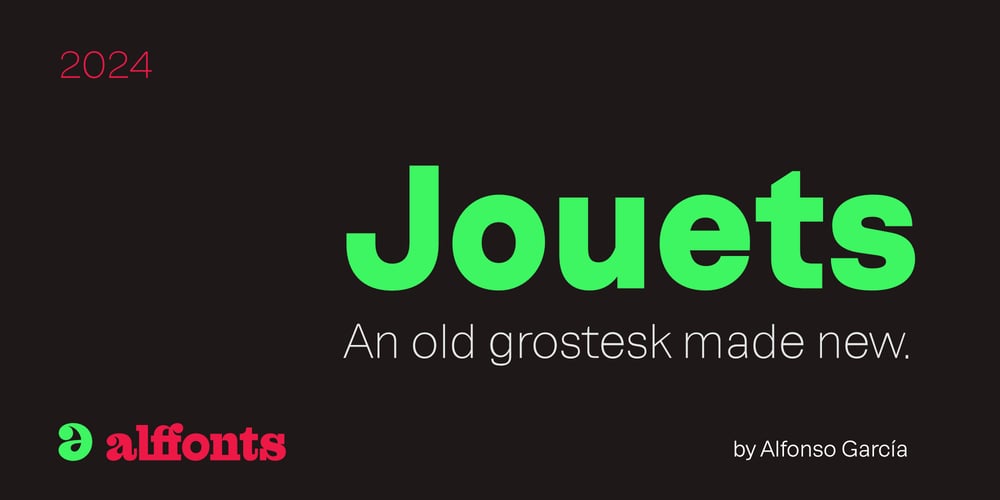
Jouets Font Family was designed by Alfonso García and published by Alffonts. Jouets contains 8 styles and family package options. The first inspiration for this typography came from an exhibition on the work of Joaquín Torres-García. Later, I found the same typography in ATF catalogs as Gothic No 545 and even in a catalog from MacKellar, Smith & Jordan as Gothic 45. Despite having the original models, I still followed what I saw and felt. I wanted it to retain several details that I loved but be a personal interpretation. I liked the drop-shaped counters; the open uppercase letters, in contrast to closed lowercase ones, the tail of Q, etc… I believe that the final result is very faithful to the original, but it looks more in line with current times. Due to its characteristics, it can be used for branding, editorial, web, etc. At any time when you seek to give a vintage touch to a modern piece.